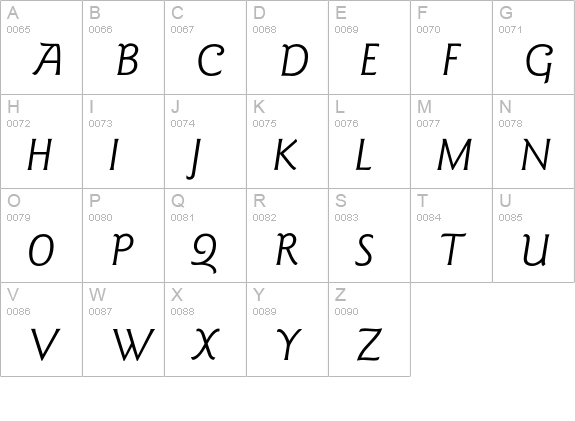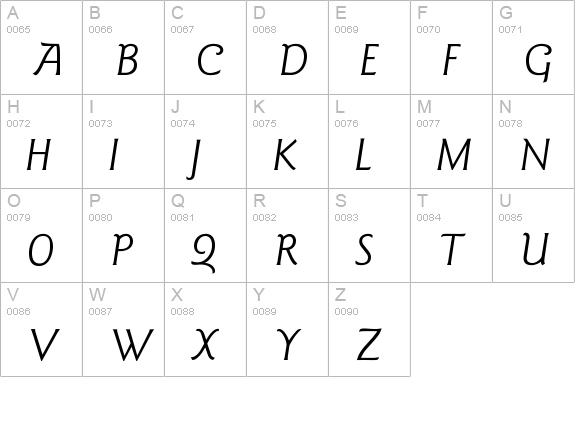
GoudySansBookItalic Font Details
GoudySansBookItalic font is a modern and elegant typeface that exudes sophistication and style. Its sleek and slanted design adds a touch of creativity and flair to any project. Perfect for conveying a sense of refinement and professionalism, this font is ideal for various applications such as branding, editorial design, and more. What sets GoudySansBookItalic font apart is its unique blend of classic elegance with a contemporary twist. The italicized version of the font adds a dynamic and fluid element to your text, making it stand out and draw attention. Whether used for headlines, titles, or body text, this font is versatile and adaptable to suit your design needs. The best part? GoudySansBookItalic font is available for free download at FontsMarket.com. Simply visit the website to access this stylish and sophisticated font at no cost. Don't miss out on this opportunity to enhance your designs with the timeless appeal of GoudySansBookItalic font. Download it today and elevate your typography game to the next level.